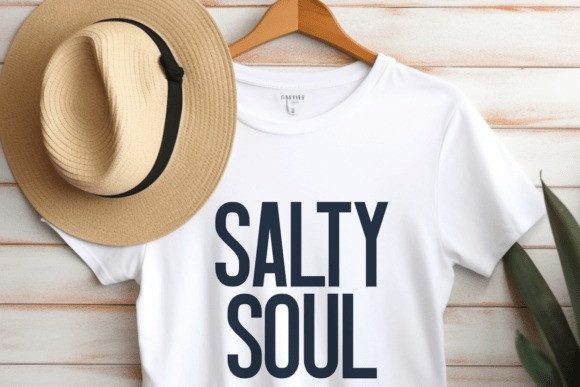
Salty Moms Font
Salty Moms Font is a condensed sans-serif font with a stunning vintage feel. It’s perfect for logos, t-shirts, mugs, invitations, greeting cards, branding, posters, packaging, signs, cutting boards, printables, crafting, and other designs. Whatever your creative needs are, Salty Moms is the perfect choice for a modern yet simple design!